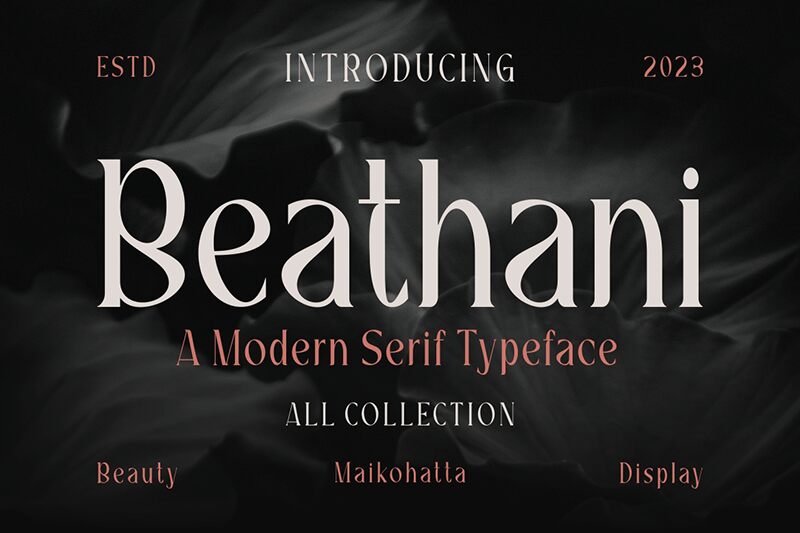
Beathani
Beathani font by Gilang Ternadho is a sophisticated free vintage serif font that combines elegance with modernity, creating a distinctive, high-contrast look. This condensed font offers an unparalleled level of artistic articulation within minimal space, lending visual character and energetic feel to texts.